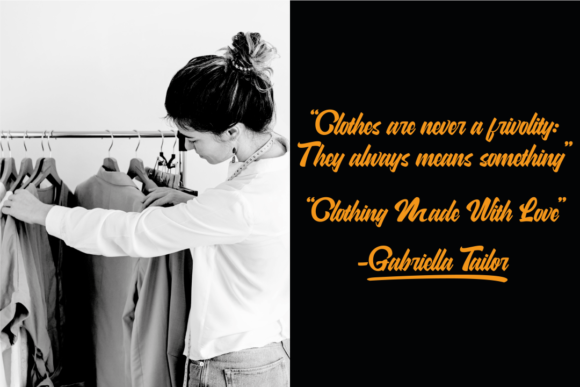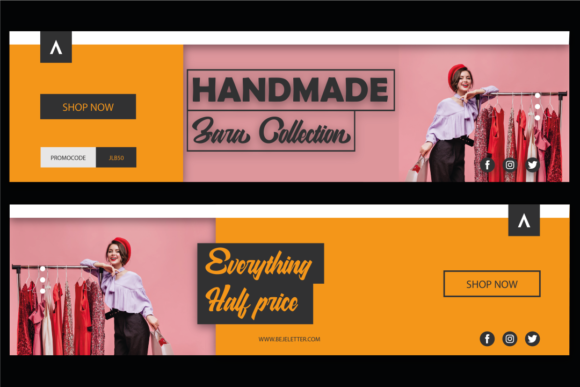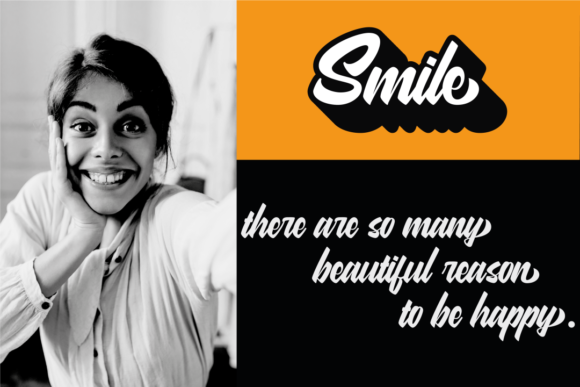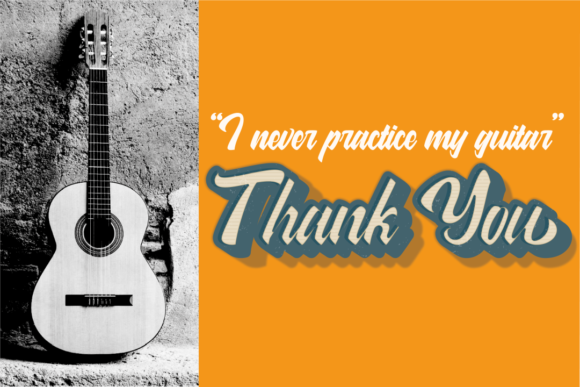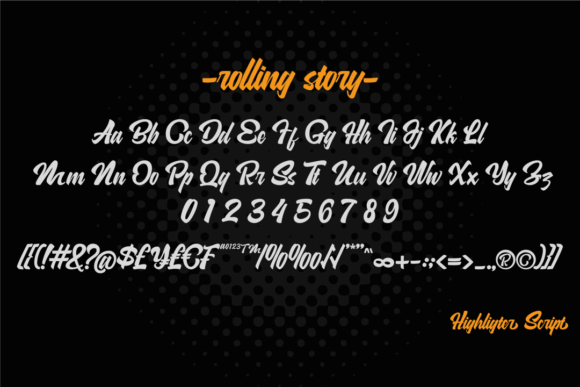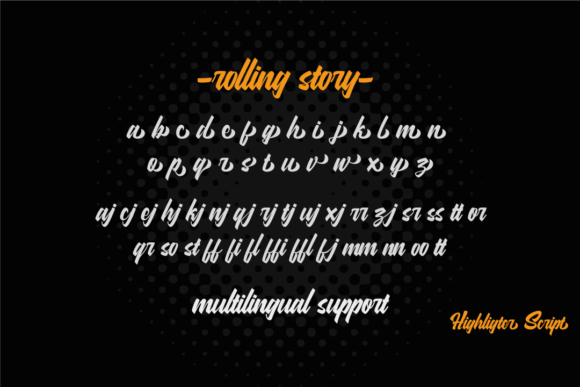
Rolling Story Font
About Rolling Story Font
Rolling Story is a gorgeous and cursive handwritten font, crafted to give your headlines and logotype projects a retro touch. This font is PUA encoded which means you can access all glyphs and swashes with ease!